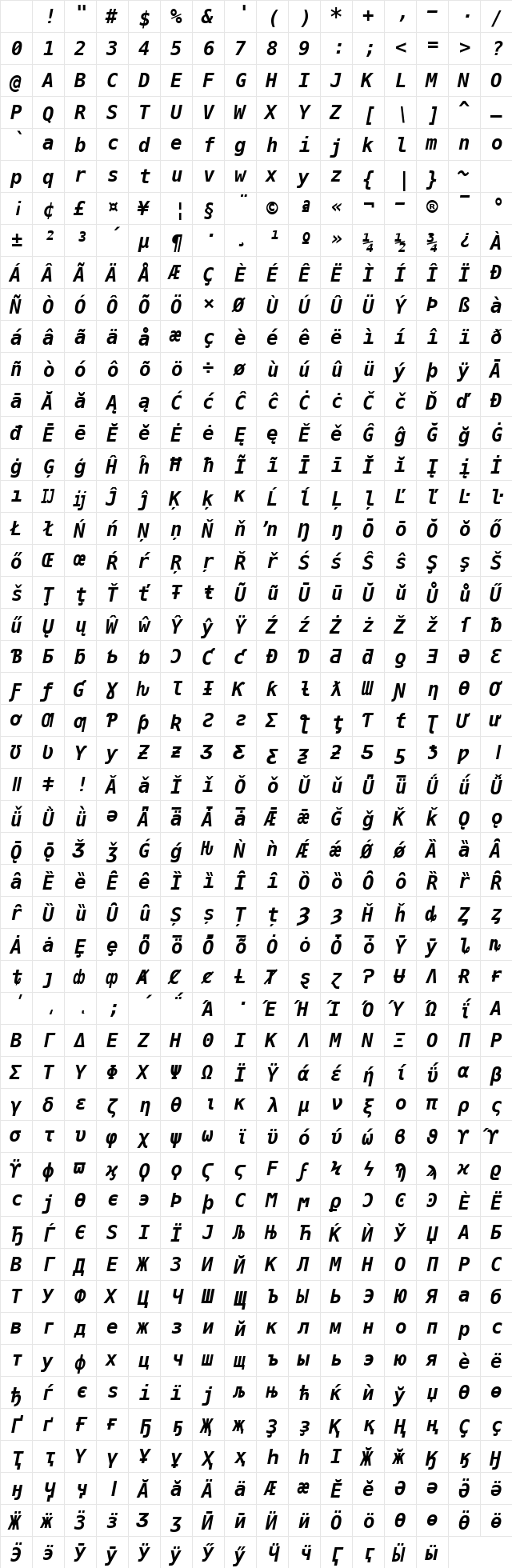
Complete Meslo LG L for Powerline Bold Italic glyph index. Displaying only characters natively supported by Meslo LG L for Powerline Bold Italic font.
Meslo LG L for Powerline brings high-energy athletic personality to the page - its confident, muscular forms are built for impact. The slanted form adds forward momentum and visual energy. Its bold stroke weight gives it real presence on the page.
Pro Tip: Use Meslo LG L for Powerline in all-caps headlines where its athletic energy can fully express itself. Pair with a solid, simple sans for supporting text.